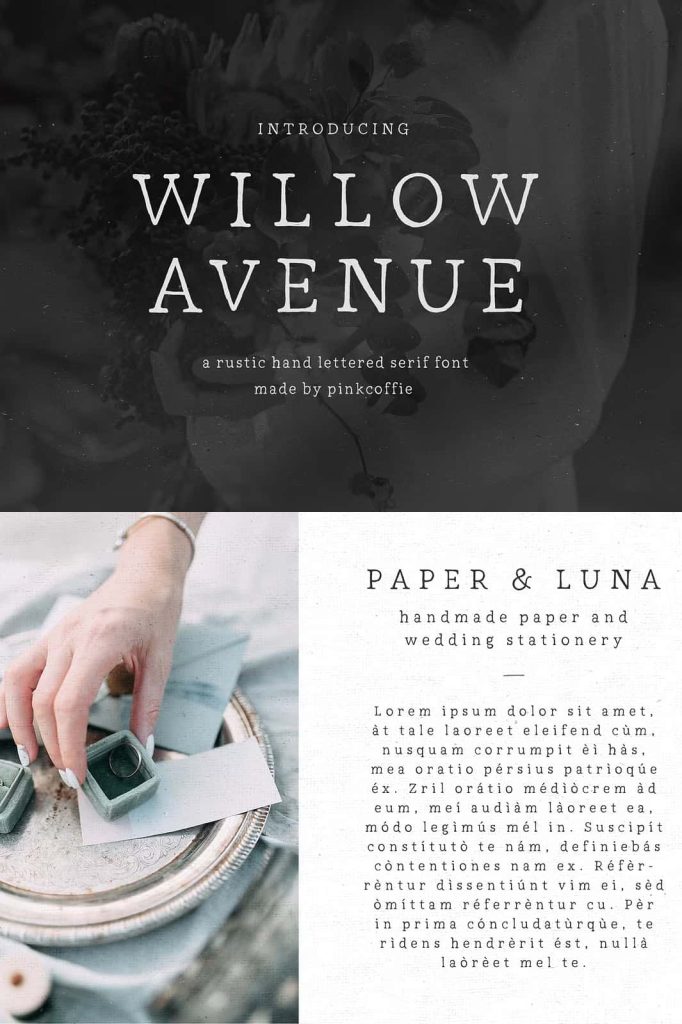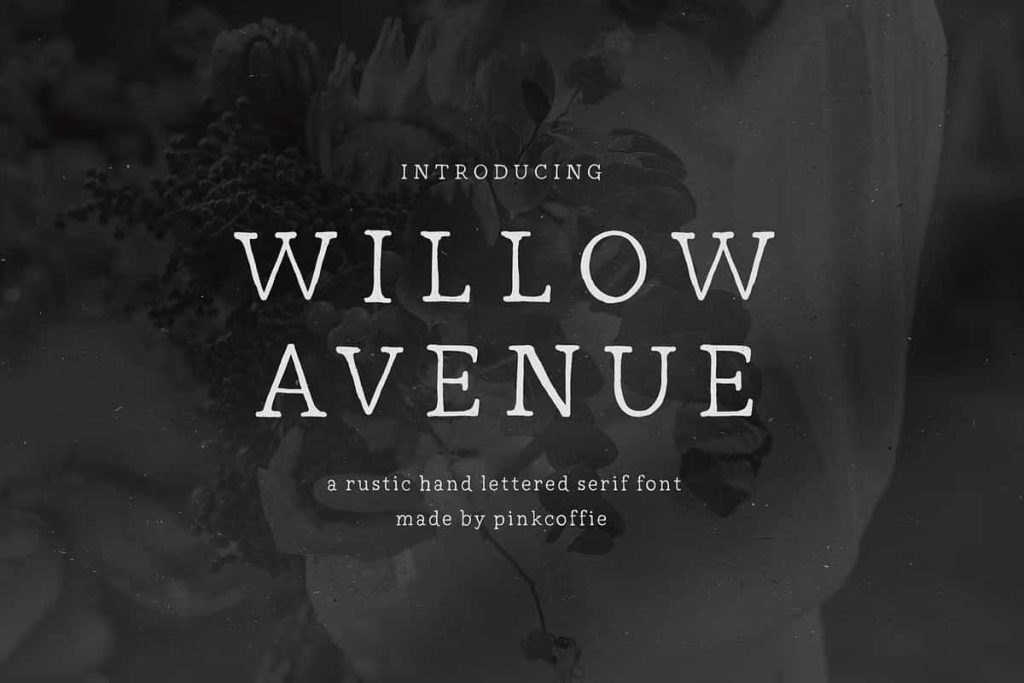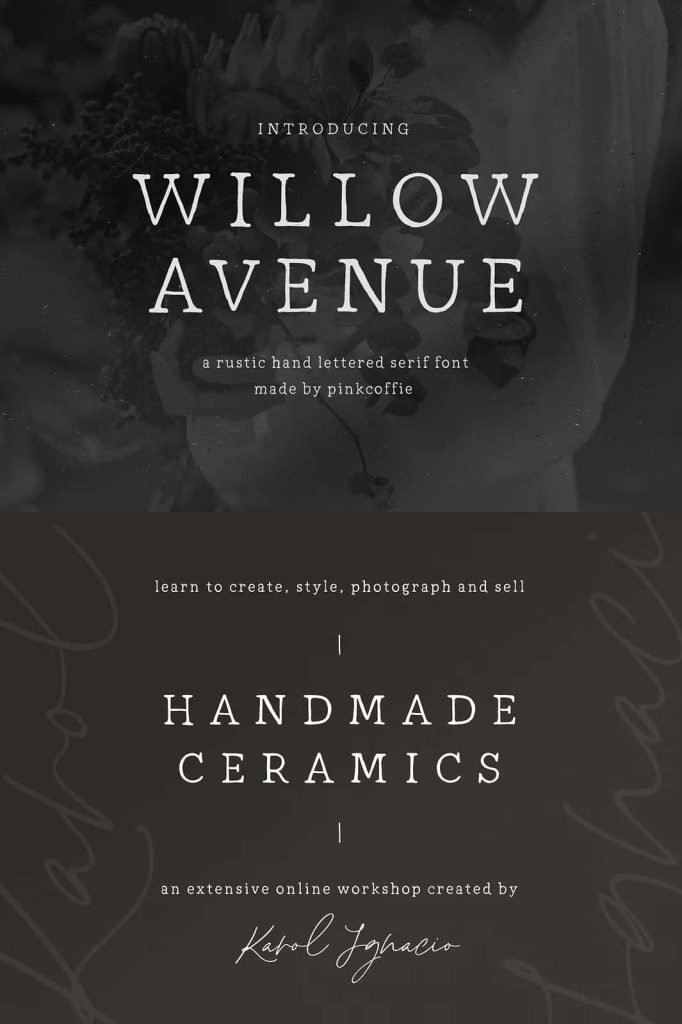
Willow Avenue: A Hand Lettered Serif Font Inspired by Handmade Beauty
Willow Avenue is a hand lettered serif font that celebrates craftsmanship, texture, and artistic warmth. Inspired by beautiful handmade ceramics and rustic stationery, this typeface captures the charm of slow, intentional design. Every letter reflects the organic imperfections and thoughtful details found in artisan creations.
Willow Avenue does more than display text. It tells a story of creativity and authenticity. The subtle irregularities, gentle curves, and expressive serifs give your typography a personal, handcrafted feel. If you want your designs to feel intimate, elegant, and grounded in artistry, this font delivers with confidence.
Hand Lettered Character with Artisan Influence
Willow Avenue draws strong inspiration from handmade ceramics. Think of the natural curves of clay shaped by hand, the slight variations in glaze, and the tactile surface of a finished piece. This font translates those qualities into letterforms that feel organic and alive.
The serif details appear carefully shaped rather than mechanically produced. Strokes vary slightly in thickness, creating a dynamic rhythm across words. These subtle nuances give your text depth and visual interest, especially in display settings.
Rustic Stationery Aesthetic
Beyond ceramics, Willow Avenue reflects the warmth of rustic stationery. Imagine textured paper, hand-stamped details, and ink pressed gently into fibers. The font echoes that tactile experience through its soft edges and expressive structure.
This rustic influence makes Willow Avenue ideal for projects that value authenticity and timeless charm. It enhances designs that aim to feel thoughtful, handcrafted, and emotionally engaging.
Elegant Yet Approachable Serif Design
While Willow Avenue carries a handmade spirit, it maintains the clarity and structure of a serif font. The letterforms balance decorative details with readability. This ensures your text remains legible while expressing personality.
The serifs feel refined but not overly formal. They add elegance without stiffness. This balance allows the font to adapt easily to both modern and vintage-inspired layouts.
Perfect for Display and Creative Headlines
Willow Avenue shines in headlines, titles, and featured text. Its hand lettered qualities stand out at larger sizes, revealing texture and detail. Designers can use it to create strong focal points that immediately capture attention.
For shorter paragraphs or subheadings, the font maintains clarity and rhythm. Pair it with a clean sans-serif typeface for body text to create contrast and hierarchy within your design.
Ideal for Branding, Packaging, and Invitations
Willow Avenue works beautifully in branding projects that emphasize craftsmanship and authenticity. It strengthens identities that revolve around handmade goods, boutique businesses, and creative services.
Use Willow Avenue for:
- Artisan product packaging
- Handcrafted brand logos
- Wedding invitations and stationery
- Creative blog headers
- Social media graphics with a rustic touch
- Editorial titles for lifestyle magazines
Its handcrafted serif structure adds personality to logos and packaging, while its elegant curves elevate invitations and special event materials. The font communicates care, intention, and creativity in every application.
Create Warm and Memorable Visual Identities
Modern design often leans toward minimalism, but audiences increasingly crave authenticity. Willow Avenue helps brands reconnect with that desire for warmth and individuality. Its hand lettered style creates a sense of intimacy that resonates with viewers.
When used in branding, this font communicates trust and originality. It feels less corporate and more personal. It invites audiences to engage, explore, and connect with the story behind the product or service.
Enhance Texture and Depth in Your Layouts
Willow Avenue introduces natural texture into your compositions. The slight irregularities in the strokes create visual depth, especially when combined with soft color palettes, earthy tones, and textured backgrounds.
Designers can experiment with spacing and alignment to amplify the handcrafted feel. Centered layouts emphasize elegance, while asymmetrical compositions enhance artistic expression.
Why Choose Willow Avenue for Your Design Projects?
Willow Avenue offers a distinctive blend of elegance and handmade charm. It captures the spirit of artisan ceramics and rustic stationery while maintaining the structure and reliability of a serif font. This combination makes it both expressive and practical.
Choose Willow Avenue when you want to:
- Create branding rooted in craftsmanship
- Add warmth to modern design layouts
- Design elegant yet approachable invitations
- Elevate packaging with a handcrafted touch
- Communicate authenticity through typography
Willow Avenue transforms simple text into a visual experience inspired by art and tradition. Its hand lettered serif design brings together texture, elegance, and personality in one cohesive typeface. For designers who value creativity and craftsmanship, Willow Avenue provides a timeless solution that feels genuine, expressive, and beautifully made.